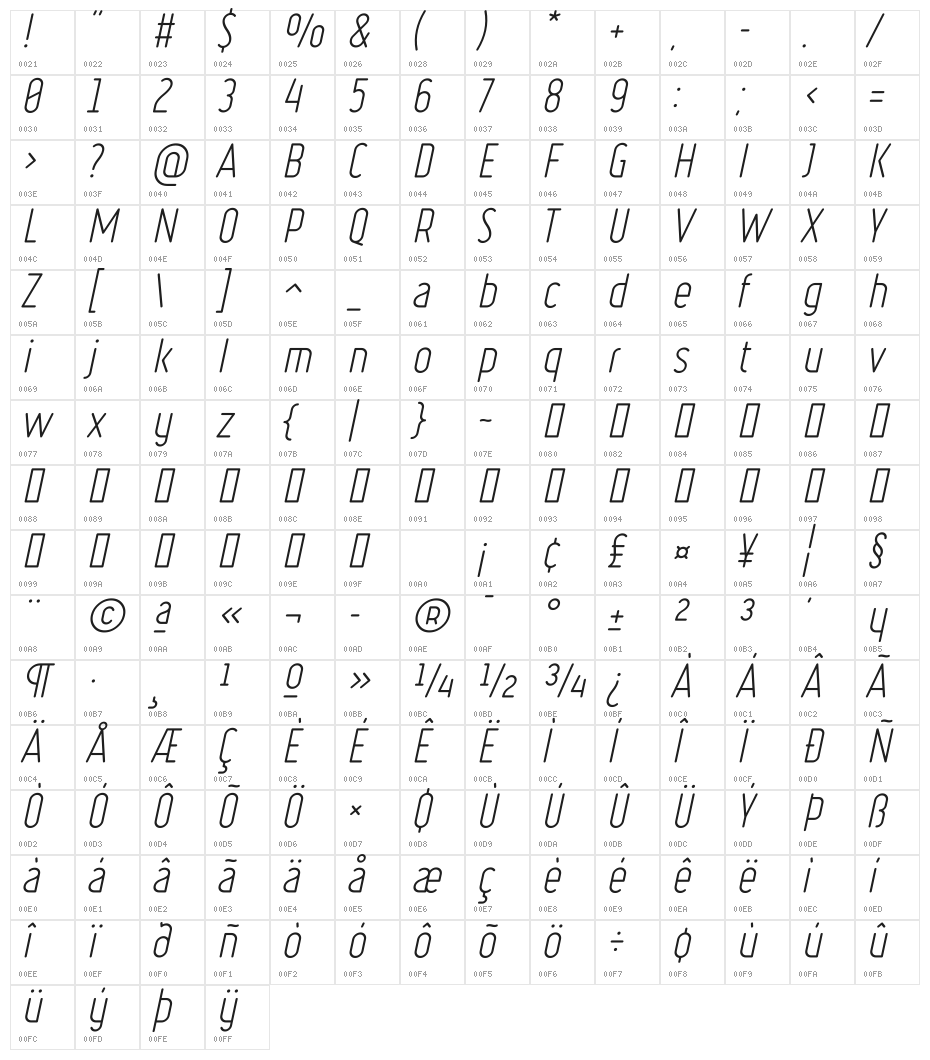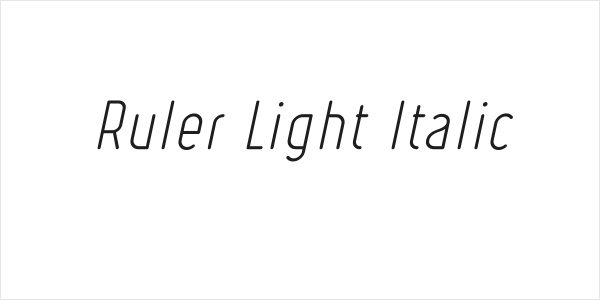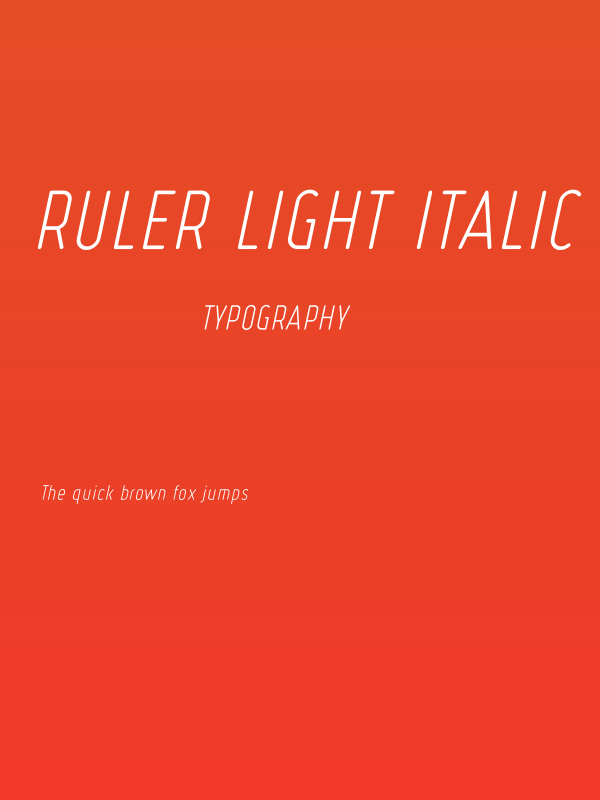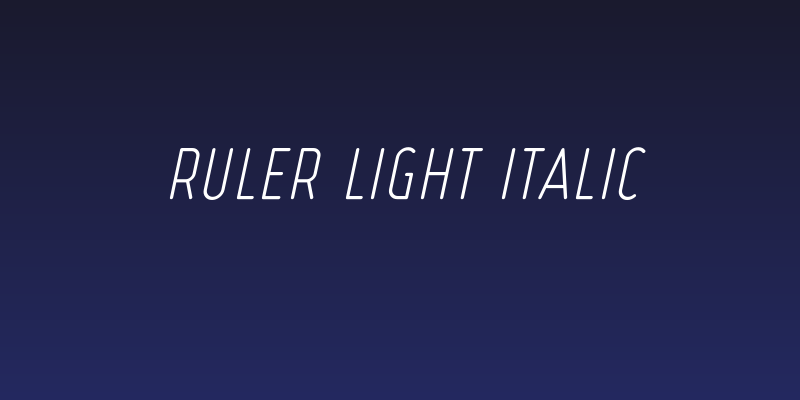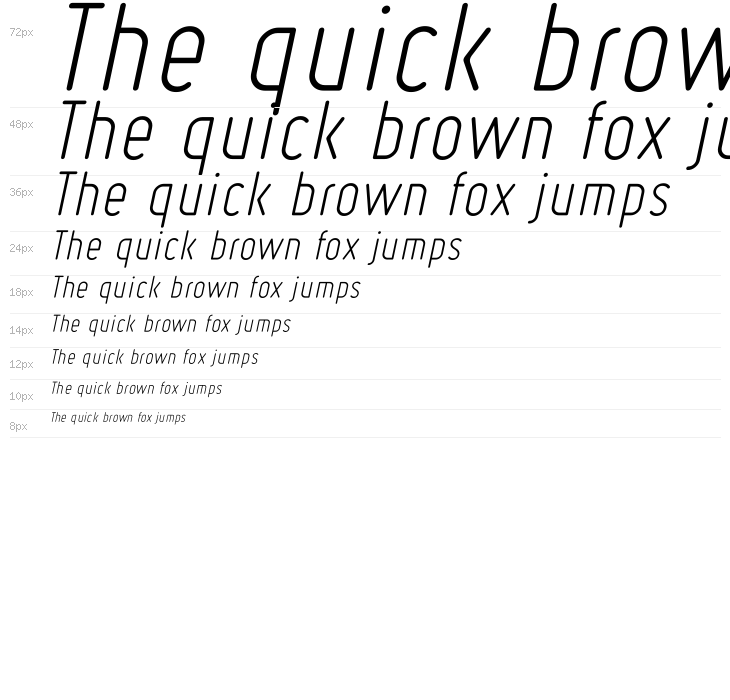
Ruler Light Italic Font
Ruler Light Italic Description
This font features a sleek, modern design with a light and airy feel. The characters are slightly slanted, giving it an italicized appearance that adds a sense of motion and elegance. The strokes are consistent and thin, contributing to a clean and minimalist aesthetic. The uppercase and lowercase letters are well-proportioned, and the numbers are clear and easy to read. Special characters are included, maintaining the same stylistic elements as the alphabet. This font is versatile, suitable for a variety of design projects that require a contemporary and sophisticated look.
| Proposed Projects | Ideal for branding, editorial design, digital interfaces, and advertising materials. |